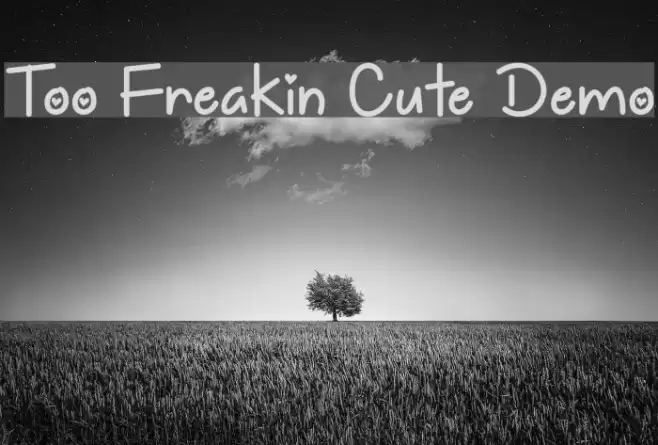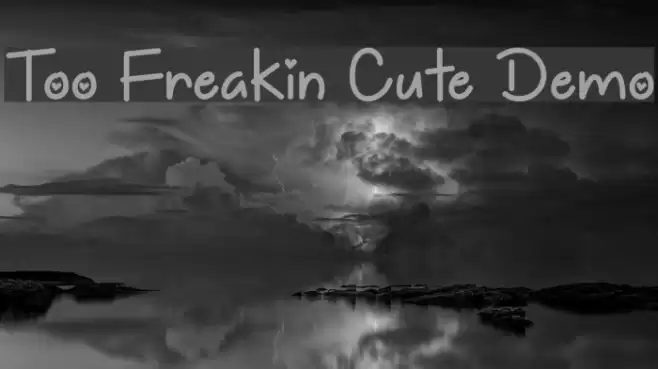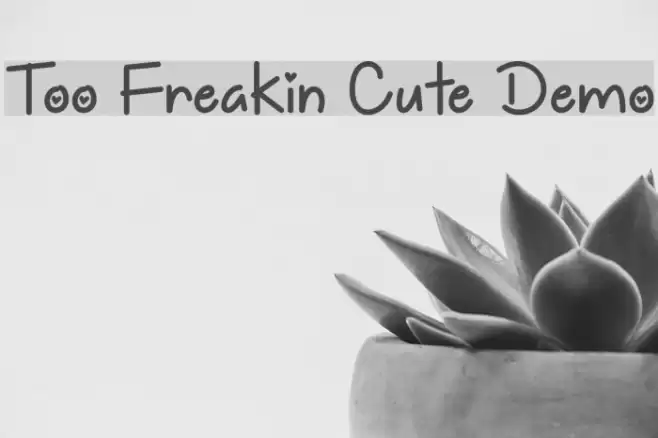
Too Freakin Cute Demo Font
Too Freakin Cute Demo Description
This playful and whimsical font features a handwritten style with a charming and friendly appearance. The characters are rounded and smooth, with a consistent stroke width that gives it a clean and approachable look. Unique elements such as heart shapes integrated into certain letters add a touch of fun and creativity. The font maintains a casual and informal tone, making it perfect for projects that require a lighthearted and cheerful vibe. Its legibility is enhanced by the clear distinction between each character, while the overall design exudes a sense of joy and playfulness.
A playful handwritten font with heart accents and a friendly, whimsical style from Uncategorized fonts.
- Proposed Projects: Ideal for children's books, greeting cards, playful branding, and social media graphics.
- Overall Style: Playful
- Use Case: Greeting cards, Children's books, Social media graphics